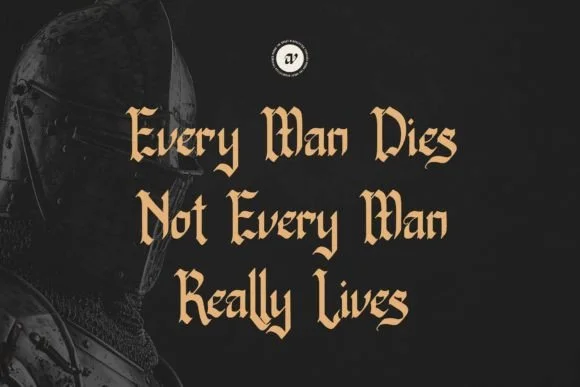
Rudra Great Font Design is a bold and decorative Blackletter typeface.
It has a strong and traditional look, with sharp edges and thick lines. Perfect for posters, logos, or designs needing a classic and powerful style.